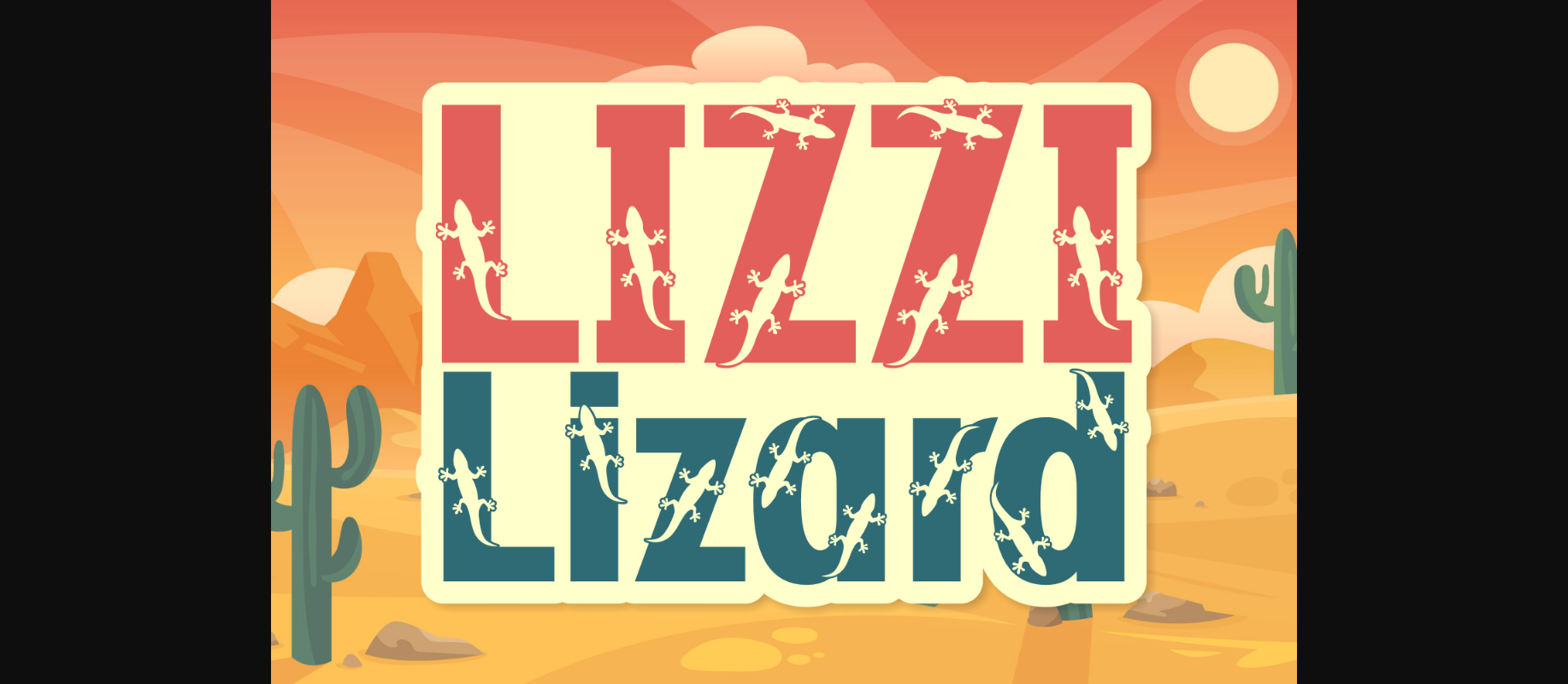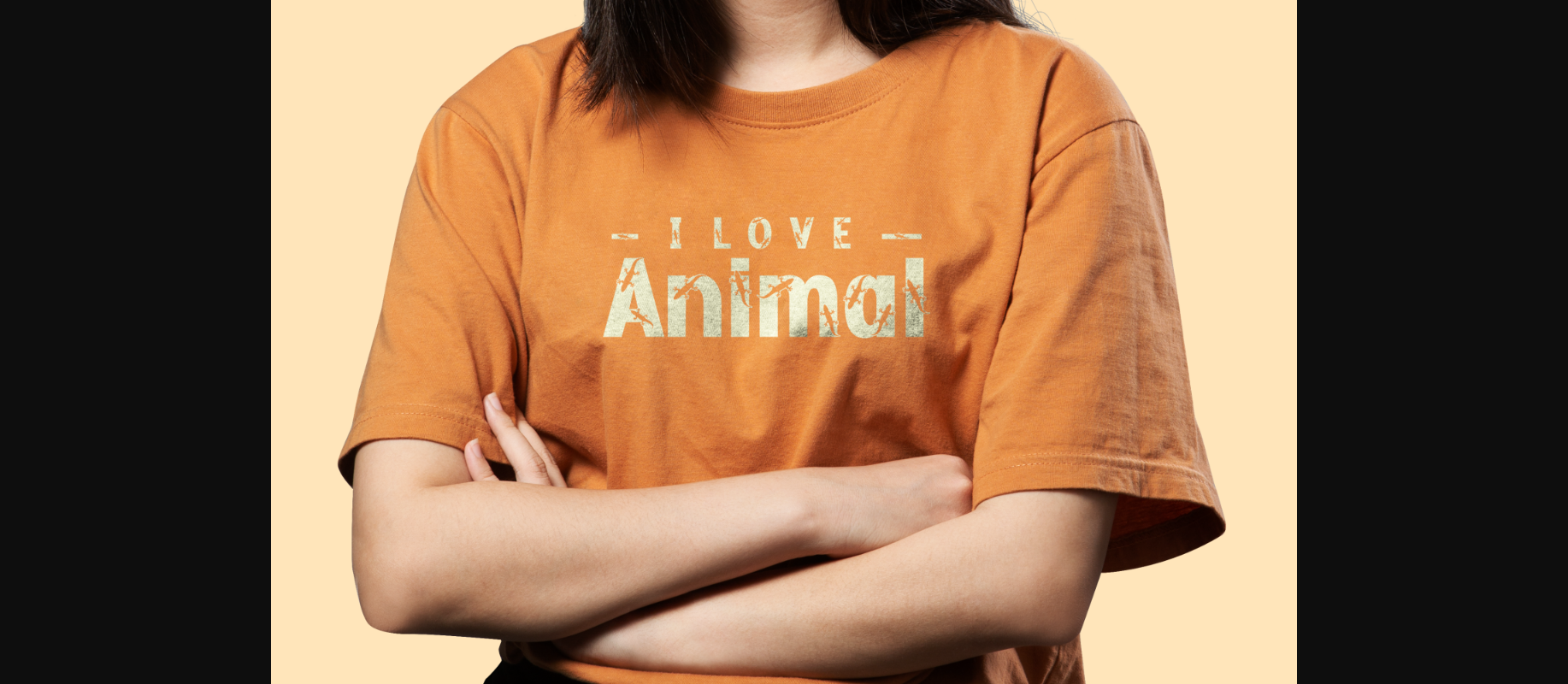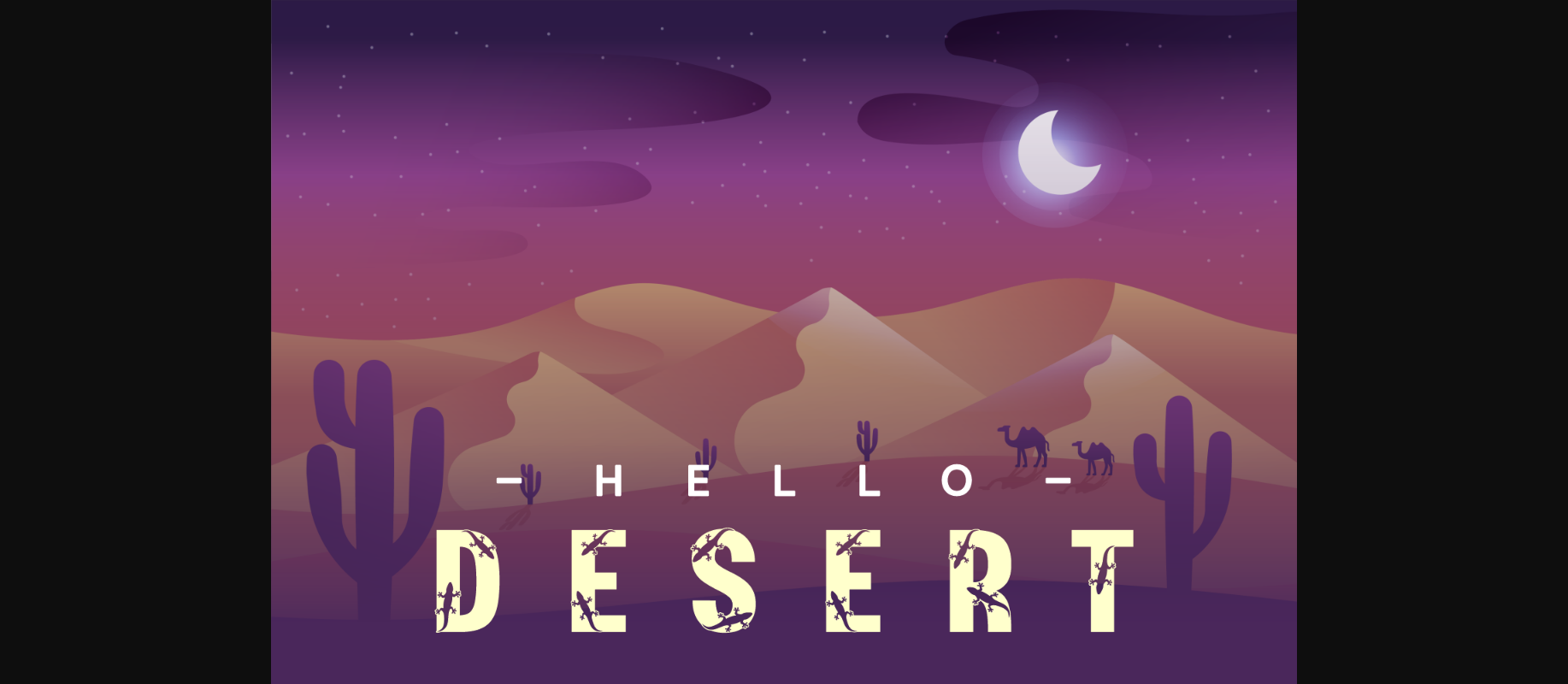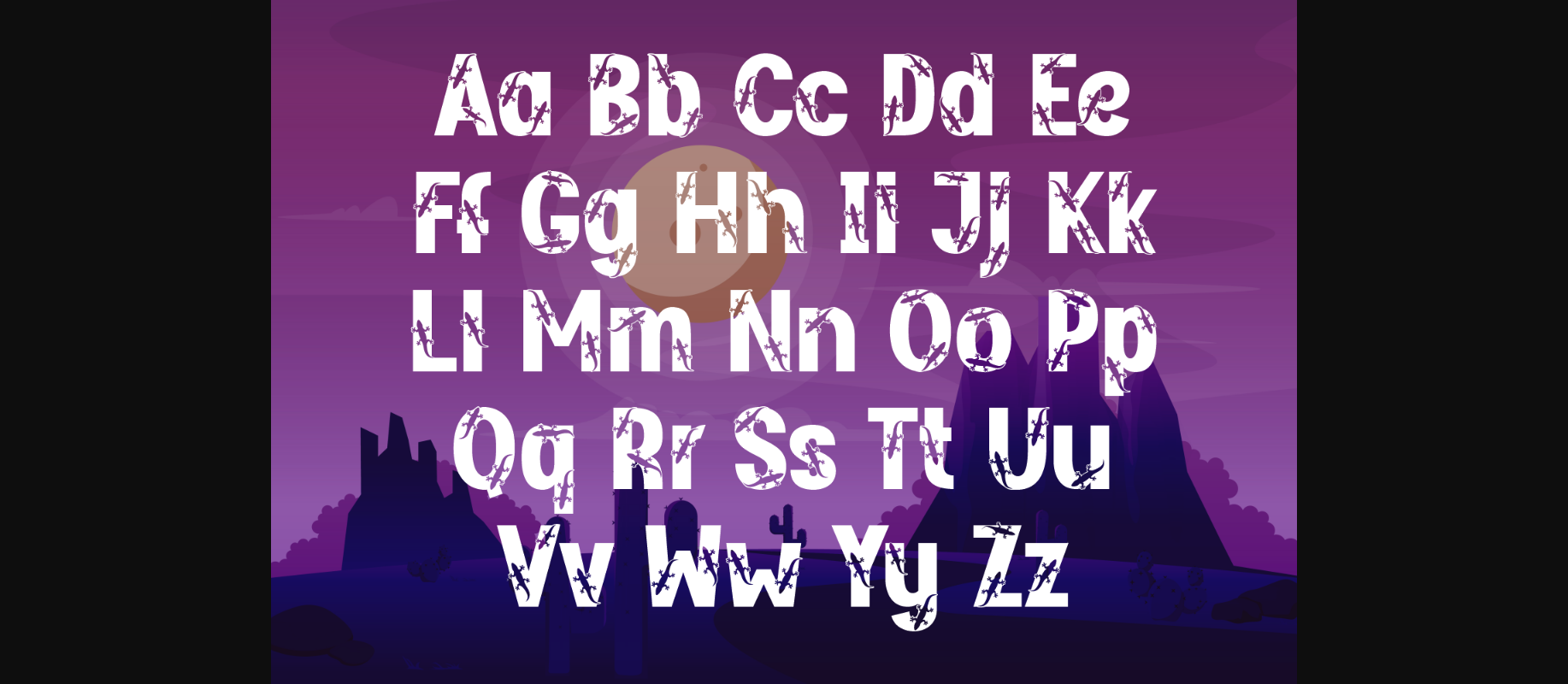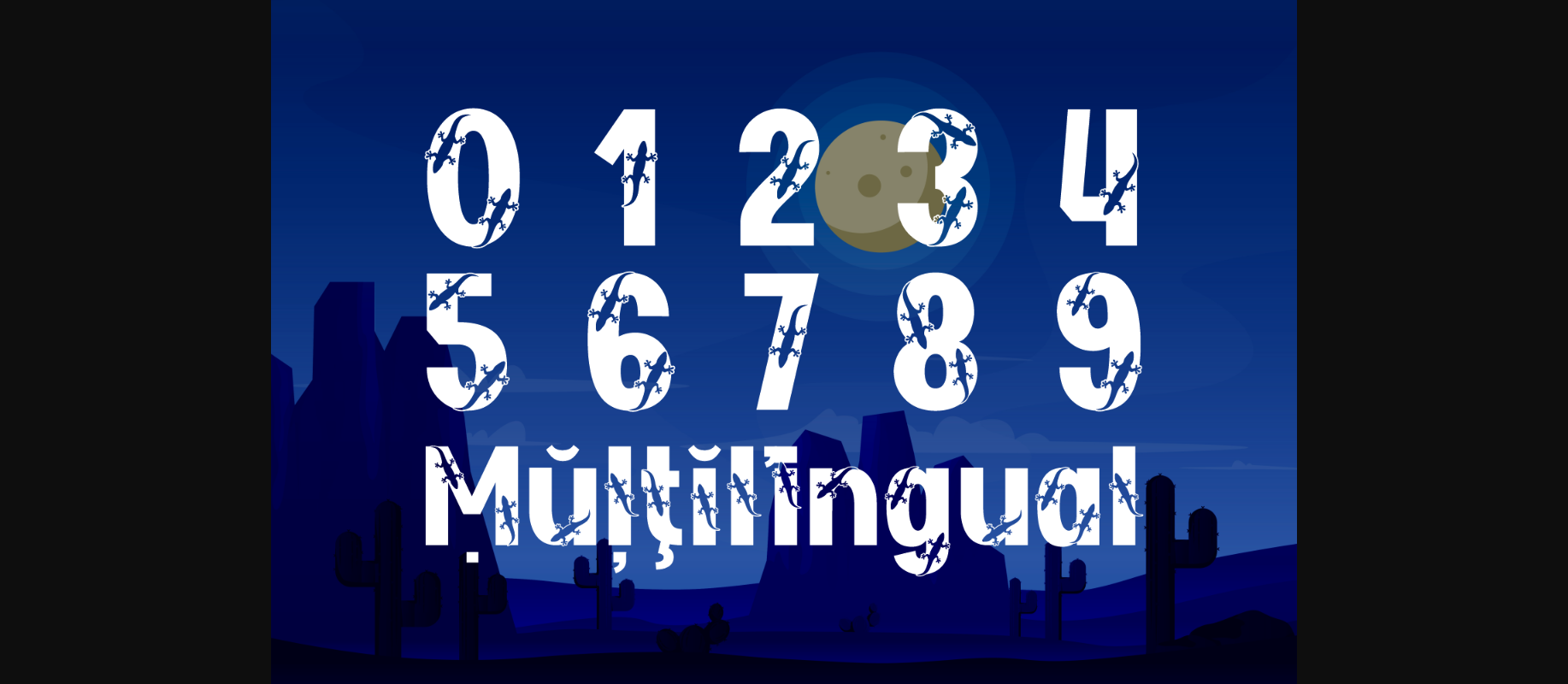
Lizzi Lizard Font
About Lizzi Lizard Font
Lizzi Lizard is a chic, quirky and original display font. It works well for various design ideas that require fun and jolly vibes.